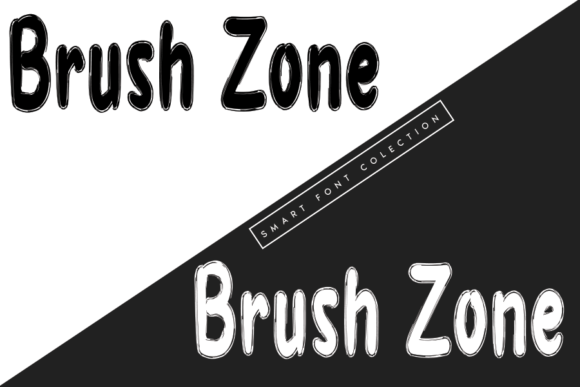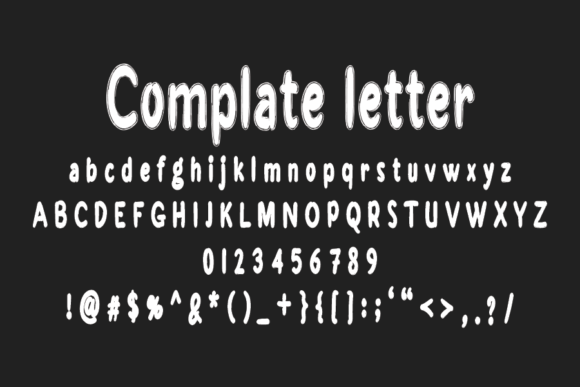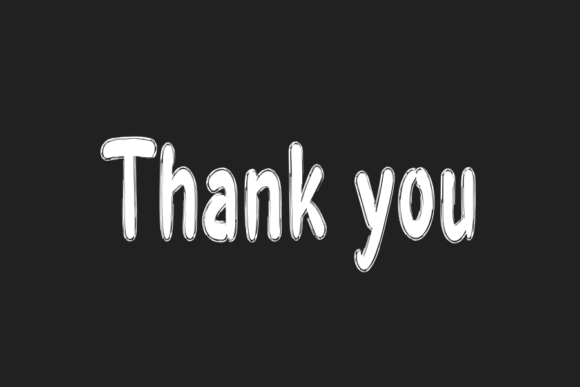
Introducing Brush Zone Font: The Perfect Blend of Casual and Unique
In the world of typography, fonts play a crucial role in conveying the tone and personality of a brand. For designers and crafters looking for a font that exudes a sense of casual elegance and quirkiness, Brush Zone Font is an excellent choice. This handwritten font, created using a brush pen, offers a clean and unique aesthetic that is perfect for a variety of projects, from logos and branding to social media and DIY crafts.
The Story Behind Brush Zone Font
Brush Zone Font is a carefully crafted font that is designed to mimic the natural flow and imperfections of handwritten text. By using a brush pen, the font’s creator aimed to achieve a sense of organic authenticity that is often lacking in digital fonts. The result is a font that feels approachable, friendly, and distinctly human.
Key Features of Brush Zone Font
- Handwritten with a brush pen: Brush Zone Font is created using a brush pen, giving it a unique, hand-crafted feel that sets it apart from more traditional fonts.
- Casual and quirky: This font has a relaxed, casual vibe that makes it perfect for projects that require a bit of personality and whimsy.
- Clean and legible: Despite its handmade origins, Brush Zone Font is remarkably clean and easy to read, making it suitable for a wide range of applications.
- Versatile: Whether you’re working on a logo, social media graphics, or a crafty DIY project, Brush Zone Font is a versatile choice that can adapt to various design needs.
Use Cases for Brush Zone Font
So, what can you use Brush Zone Font for? The possibilities are endless! Here are a few ideas to get you started:
- Logos and branding: Brush Zone Font is an excellent choice for logos and branding projects that require a friendly, approachable tone.
- Social media graphics: Add a personal touch to your social media graphics, from Instagram posts to Facebook headers, with Brush Zone Font.
- Crafty DIY projects: Whether you’re creating handmade cards, gift tags, or scrapbook pages, Brush Zone Font is a great way to add a touch of personality to your crafts.
- Packaging design: Use Brush Zone Font to add a human touch to your product packaging and make it stand out on store shelves.
Tips for Using Brush Zone Font Effectively
To get the most out of Brush Zone Font, here are a few tips to keep in mind:
- Play with sizes and colors: Experiment with different font sizes and colors to create visual interest and hierarchy in your designs.
- Mix with other fonts: Combine Brush Zone Font with other fonts to create a unique and engaging typography scheme.
- Emphasize the imperfections: Don’t be afraid to let the natural imperfections of Brush Zone Font shine through – they add to its charm and character!
In conclusion, Brush Zone Font is a unique and versatile font that is perfect for designers and crafters looking for a casual, handwritten aesthetic. With its clean and quirky vibe, this font is suitable for a wide range of projects, from logos and branding to social media and DIY crafts. So why not give Brush Zone Font a try and see how it can add a touch of personality to your designs?